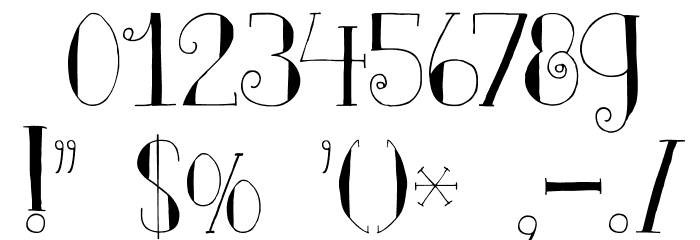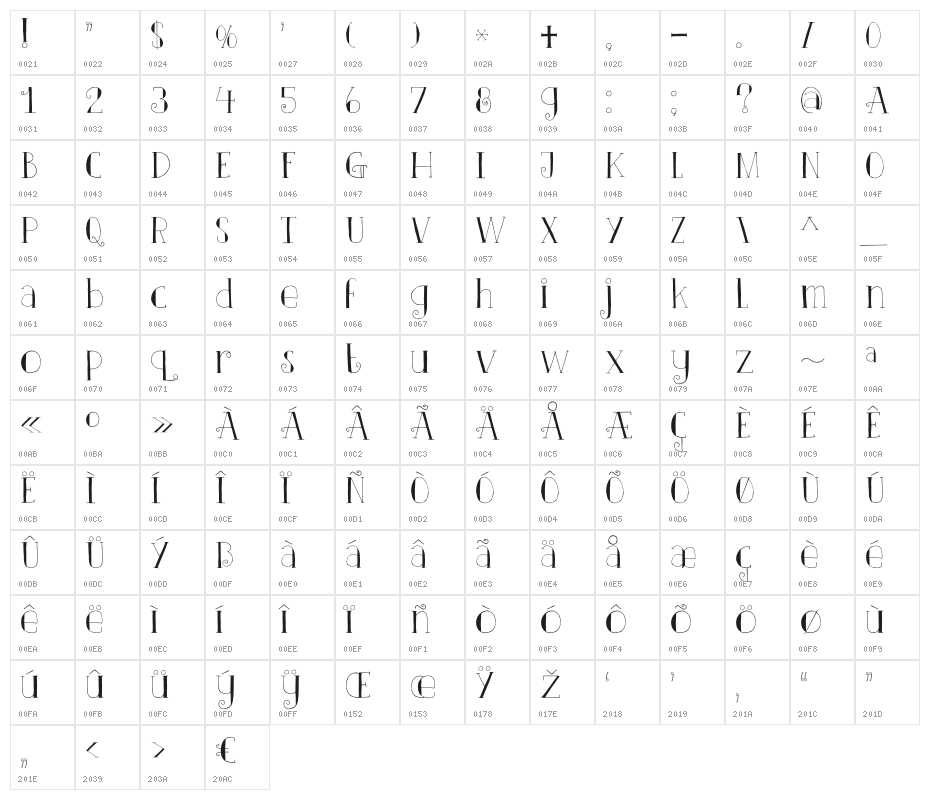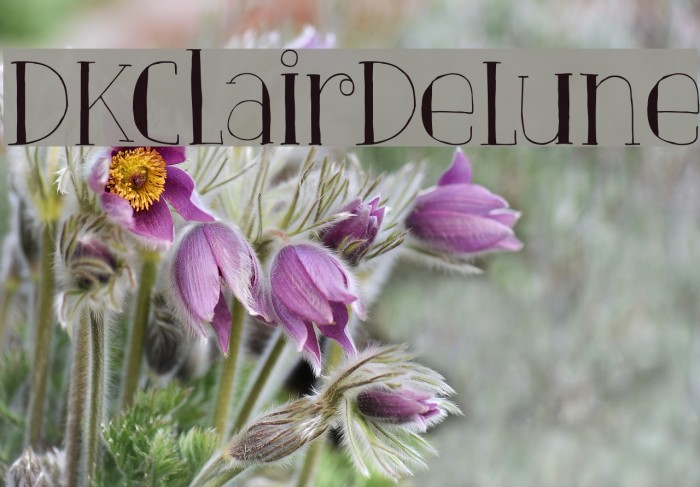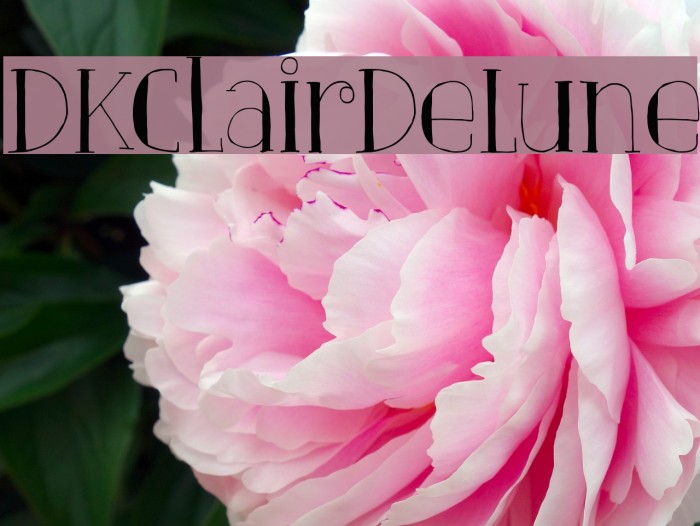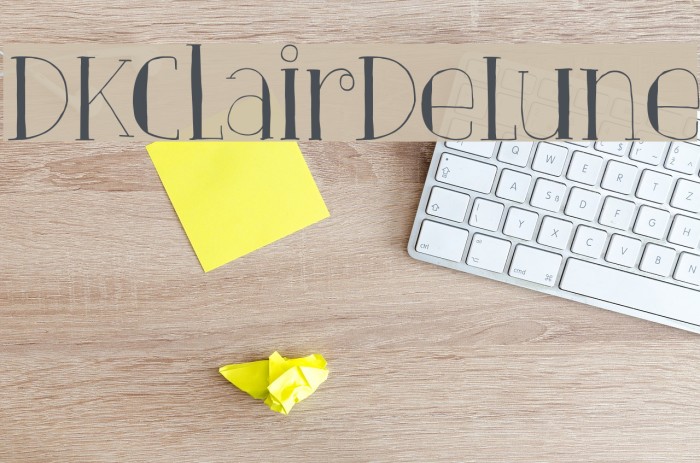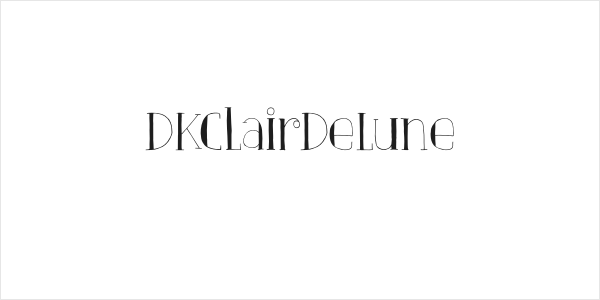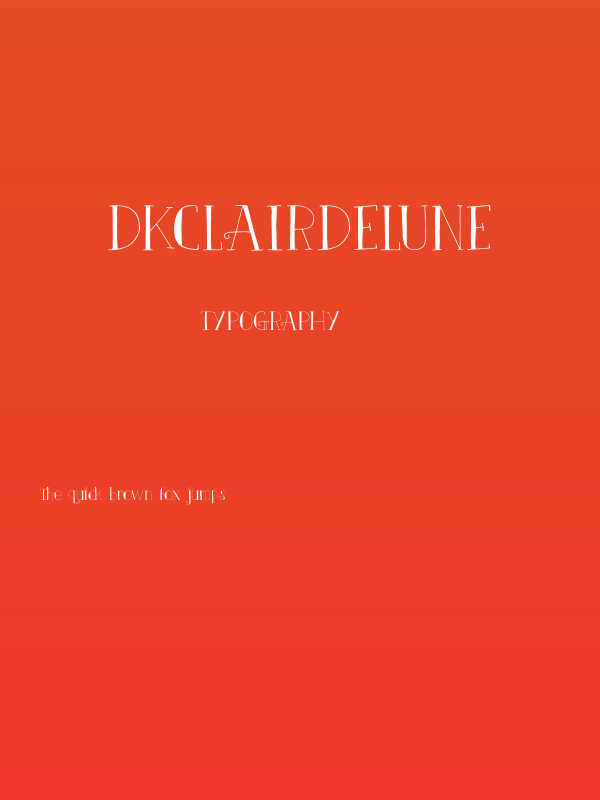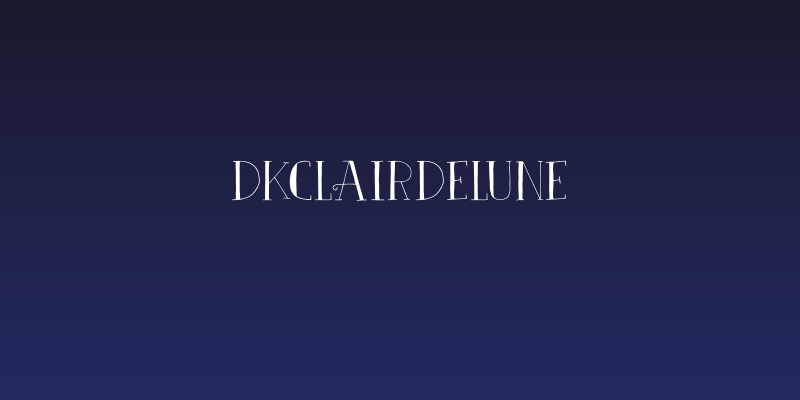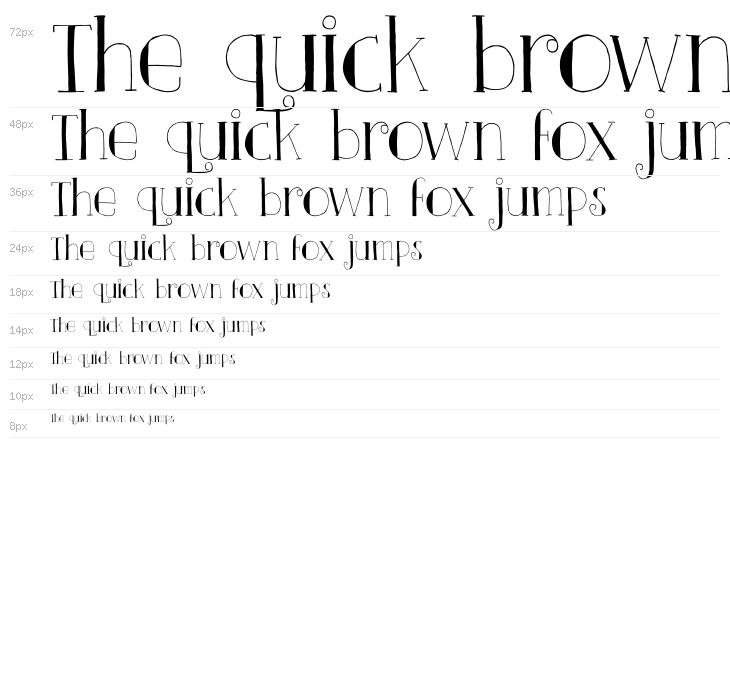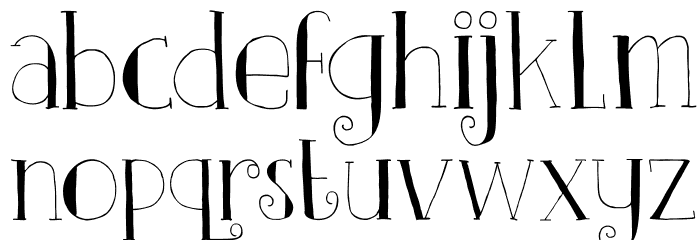
DKClairDeLune Font
DKClairDeLune Description
This font features a whimsical and artistic style, characterized by its playful curls and swirls integrated into the letterforms. The uppercase letters are tall and slender, with unique embellishments that add a touch of elegance and creativity. The lowercase letters maintain a consistent style, with some characters having distinctive loops and curves that enhance the font's decorative appeal. The numerals are equally stylized, with a mix of straight lines and curved elements that make them stand out. Special characters follow the same artistic theme, providing a cohesive look across all glyphs. This font is perfect for projects that require a touch of fantasy and creativity.
| Proposed Projects | Ideal for invitations, greeting cards, children's books, and creative branding projects. |